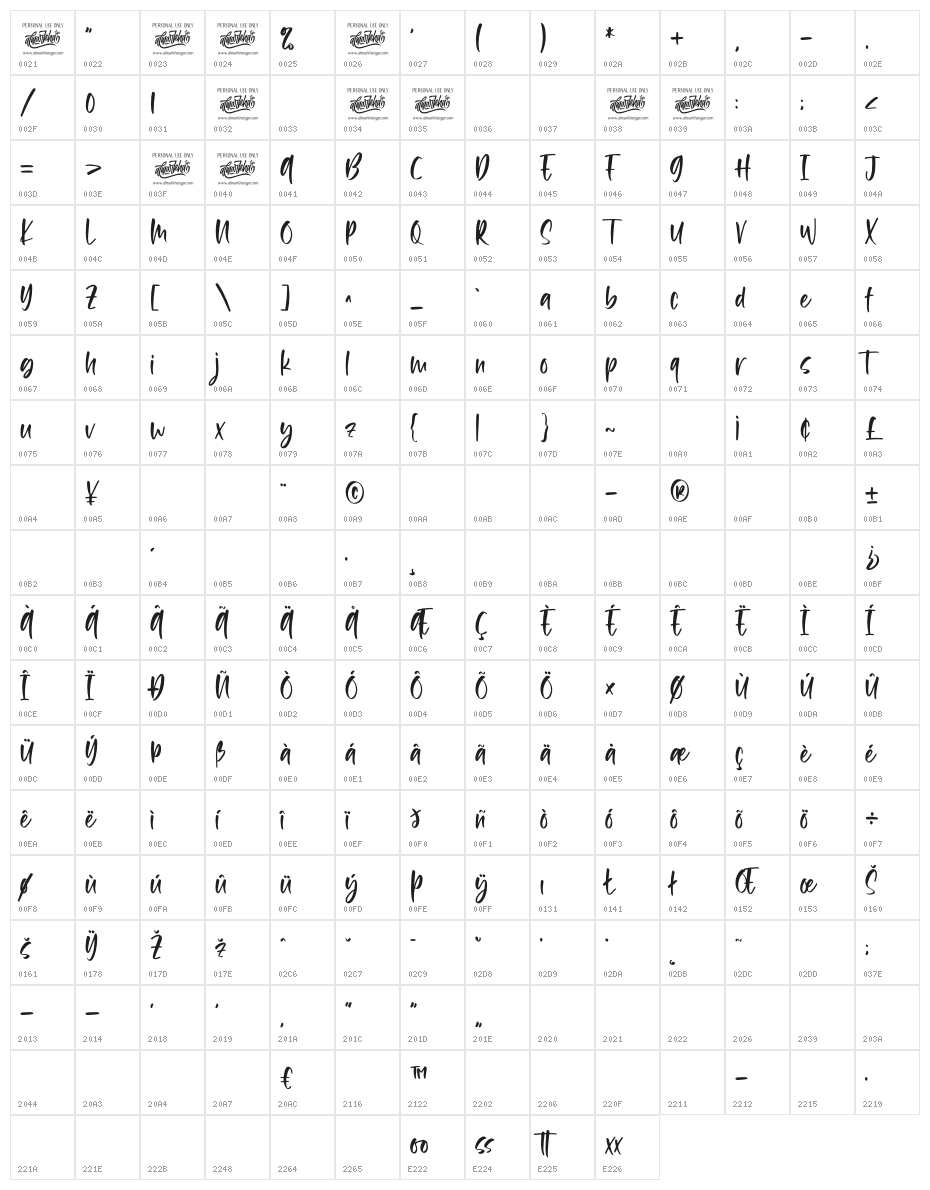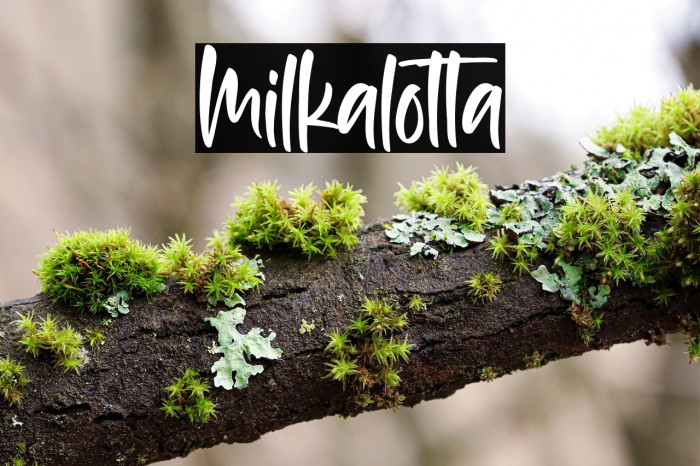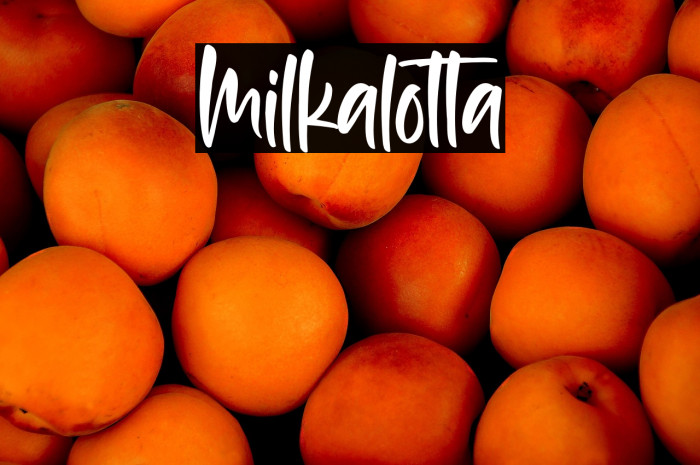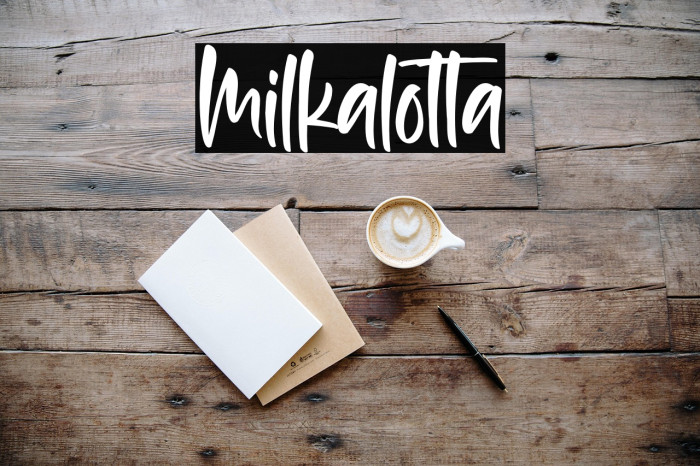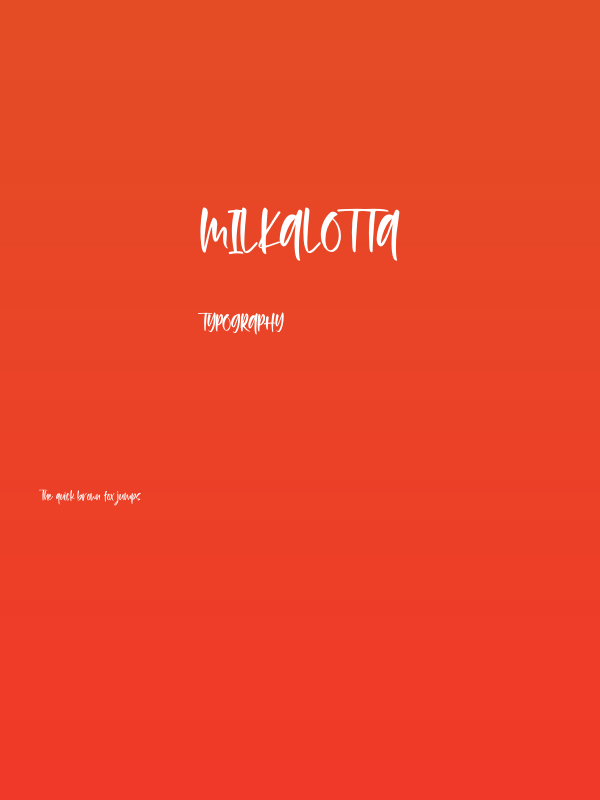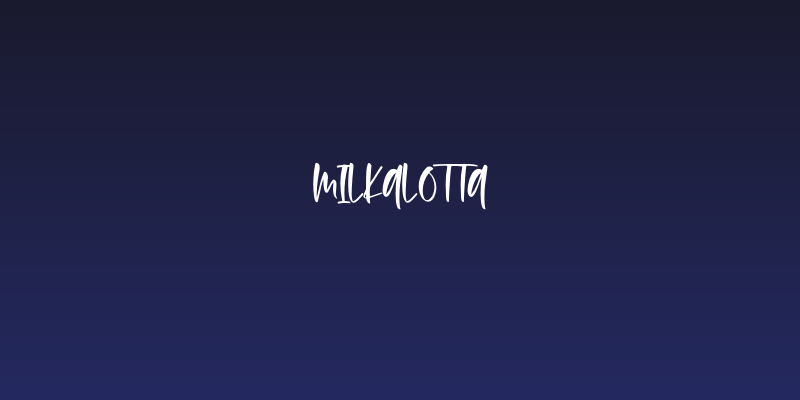
Milkalotta Font
Milkalotta Description
This font exudes a playful and energetic vibe with its bold, handwritten style. The letters are slightly slanted, giving a sense of movement and dynamism. The strokes are thick and consistent, creating a strong visual impact. The uppercase and lowercase letters maintain a cohesive look, while the numbers and special characters complement the overall design. The font's casual and informal appearance makes it ideal for projects that require a personal touch or a creative flair. Its unique style is both modern and approachable, making it suitable for a variety of applications.